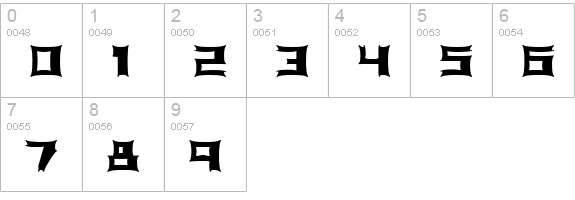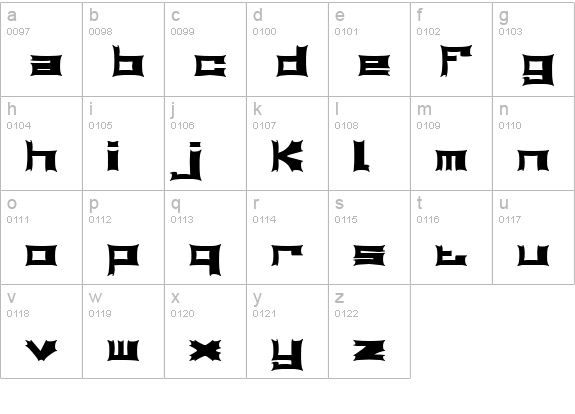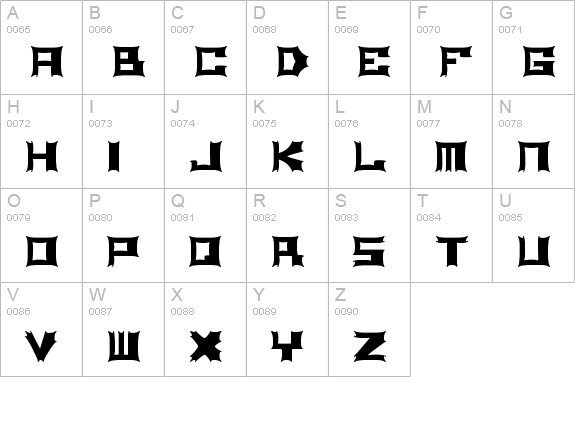
Relapse BRK Font Details
Relapse BRK font is a mesmerizing display typeface that captivates with its intricate design and unique letterforms. This font effortlessly combines elegance with a touch of edginess, making it perfect for a wide range of creative projects. The carefully crafted details of each character give it a distinct personality that is both modern and sophisticated. With its bold strokes and sharp angles, Relapse BRK font demands attention and stands out in any design. It adds a sense of dynamism and energy, making it ideal for headlines, logos, posters, and branding materials. Whether you're designing for a fashion brand, a music album cover, or a cutting-edge website, this font will make a striking impression. What makes Relapse BRK font even more appealing is that it is free to download at FontsMarket.com. This means that you can enhance your designs with this stunning typeface without any cost. It's a fantastic opportunity to access a high-quality font that will elevate your creations to the next level. Not only is Relapse BRK font visually stunning, but it is also versatile in its usage. It supports multiple languages, allowing you to communicate your message effectively to a global audience. The font is available in various weights, giving you the flexibility to experiment and find the perfect balance for your design. In addition to its aesthetic appeal, Relapse BRK font is also highly legible, making it easy to read even in small sizes. This ensures that your text remains clear and accessible, no matter the context. The attention to detail and meticulous craftsmanship that went into creating this font is evident in every character, making it a true work of art. Download Relapse BRK font today from FontsMarket.com and unlock a world of creative possibilities. Whether you're a professional designer or a passionate hobbyist, this font will inspire and empower you to create visually stunning and impactful designs. With its unique blend of elegance and edginess, Relapse BRK font is a must-have addition to your typography collection.